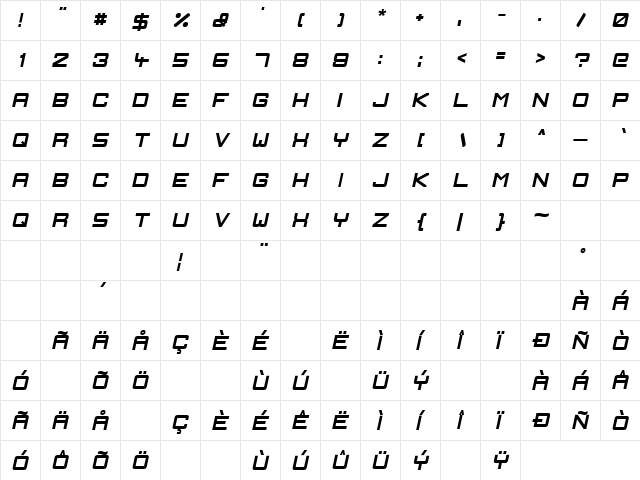
Ignis et Glacies Sharp BoldItalic Font Preview
| Designer | Zdenek Gromnica aka FutureMillennium |
Design Context for Ignis et Glacies Sharp Typeface
Ignis et Glacies Sharp offers clean, dependable letterforms without strong stylistic allegiance, making it a practical choice for designers who need flexibility. Its italic angle brings a sense of urgency and motion to the letterforms. Its bold stroke weight gives it real presence on the page.
Pro Tip: Try Ignis et Glacies Sharp for annotation and caption copy alongside an upright companion — the contrast in angle creates a dynamic but ordered typographic system.